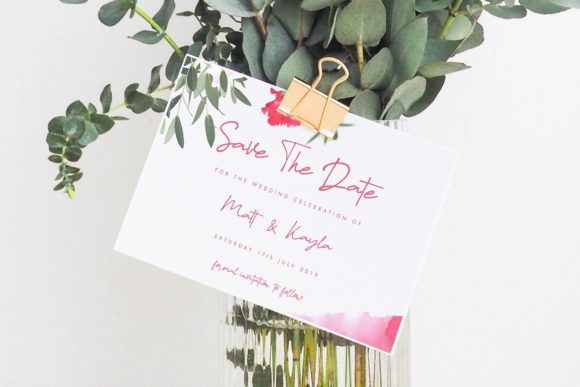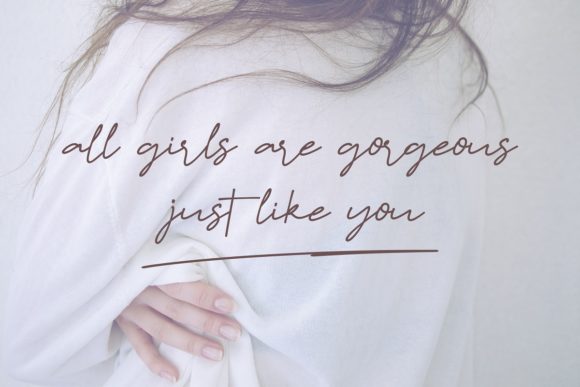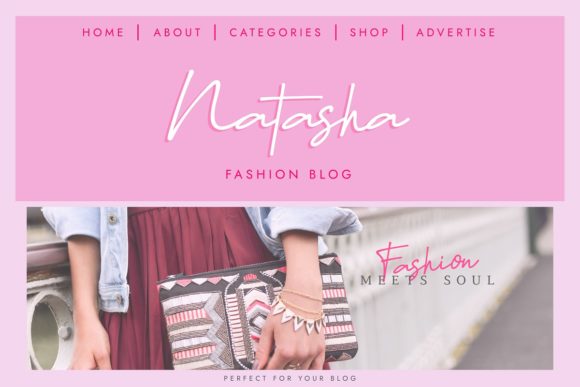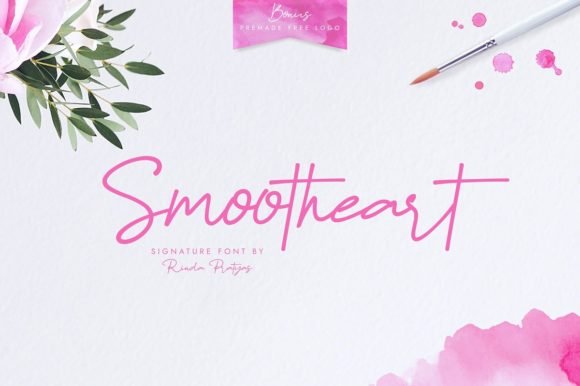
Introduction to Smootheart Font
Smootheart is a casual, yet elegant handwritten font.
Get inspired by its unique feel, and turn any design project into a standout .
Key Features of Smootheart Font
Why Choose Smootheart Font?